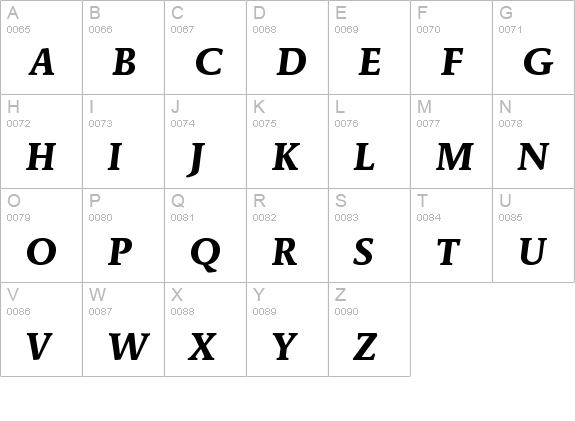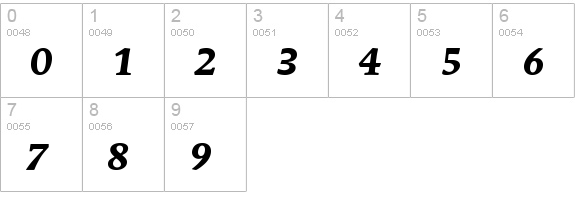
MendozaEF-BoldItalic is a striking and versatile typeface that exudes elegance and sophistication. With its bold weight and italic slant, this font is perfect for creating eye-catching headings, titles, and logos that demand attention. The unique design of MendozaEF-BoldItalic strikes the perfect balance between modernity and classic sophistication, making it a truly timeless choice for any design project. And the best part? MendozaEF-BoldItalic is available for free download at FontsMarket.com. That's right, you can easily access this stunning font at no cost, making it a valuable addition to your font collection without breaking the bank. So why wait? Elevate your designs with the bold and stylish MendozaEF-BoldItalic today!